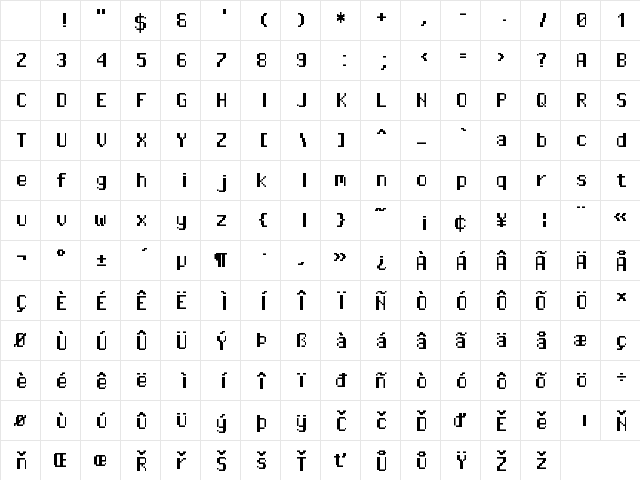
Complete Pixel Operator Mono HB Regular glyph index. Displaying only characters natively supported by Pixel Operator Mono HB Regular font.
Pixel Operator Mono HB is rooted in pixel-grid construction, making it a natural fit for game UI, retro computing aesthetics, and digital nostalgia projects.
Pro Tip: Use Pixel Operator Mono HB at sizes that align with its pixel grid for the sharpest rendering - scaling to non-integer multiples can introduce unwanted blur.